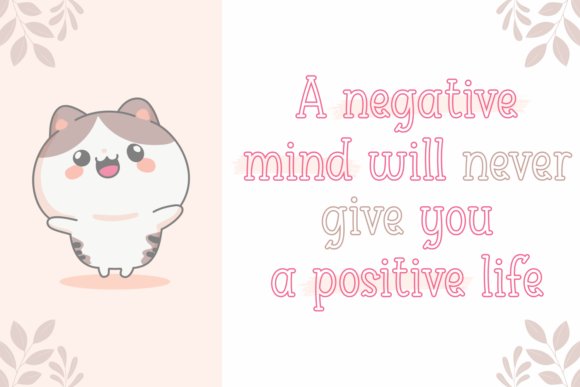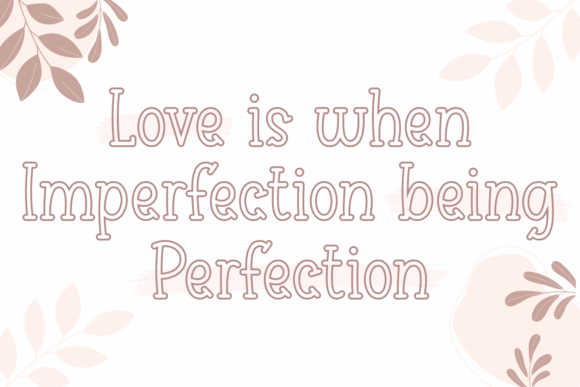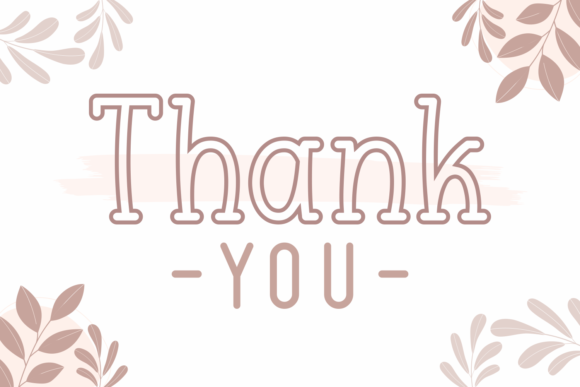
Introduction to Cute Sherlyn Font
Cute Sherlyn is a fun outlined display font.
Whether youโre using it for crafting, digital designing, presentations or greeting cards making, itโs perfect .
Key Features of Cute Sherlyn Font
Why Choose Cute Sherlyn Font?
Cute Sherlyn Font offers exceptional quality and versatility, making it a valuable addition to your design toolkit. Whether you’re creating for personal projects or commercial use, Cute Sherlyn Font delivers professional results.